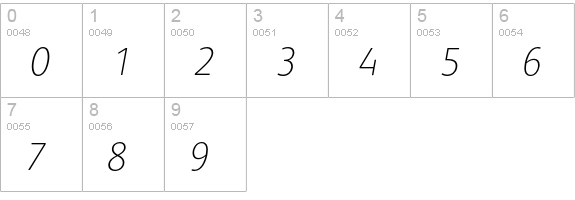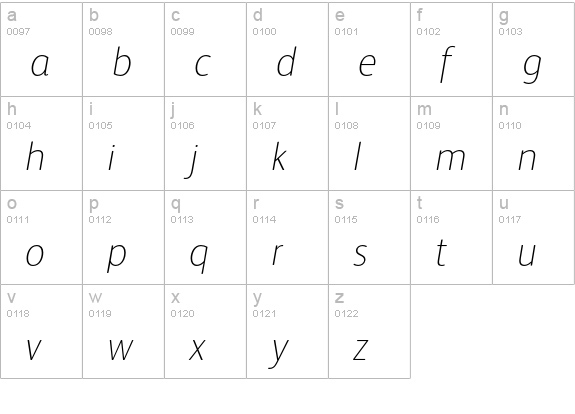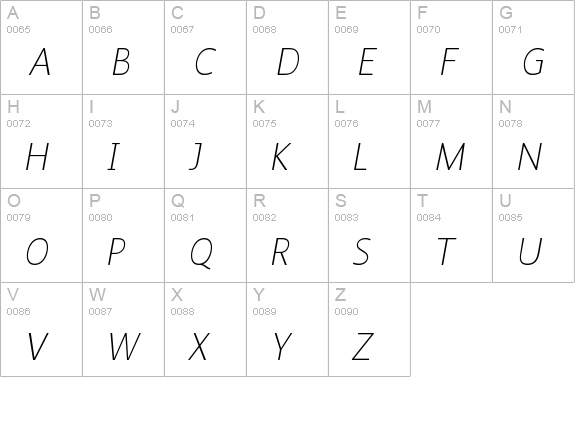
FSAlbert Thin Italic is a delicate, low-contrast, italic variant in the FSAlbert typeface family \xE2\x80\x94 well suited to fashion editorial, minimal branding, and high-contrast display.
FSAlbert Thin Italic is a sleek and elegant font that exudes sophistication and modernity. Its thin, slanted characters convey a sense of grace and refinement, making it perfect for projects that require a touch of sophistication. The italicized design adds a dynamic and stylish flair to any text, making it stand out with its unique aesthetic appeal. This font is perfect for use in fashion magazines, luxury branding, editorial design, and any project where a touch of elegance is desired. Its versatility makes it suitable for a wide range of design applications, from logos to headlines to body text. Best of all, FSAlbert Thin Italic is available for free download at FontsMarket.com. This means you can easily access this stunning font and incorporate it into your projects without any cost. Don't miss out on the opportunity to elevate your designs with the beauty and refinement of FSAlbert Thin Italic.